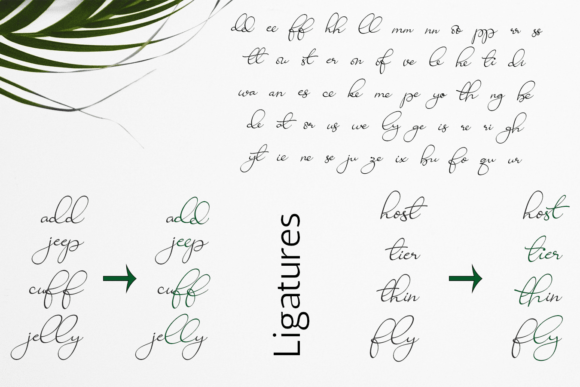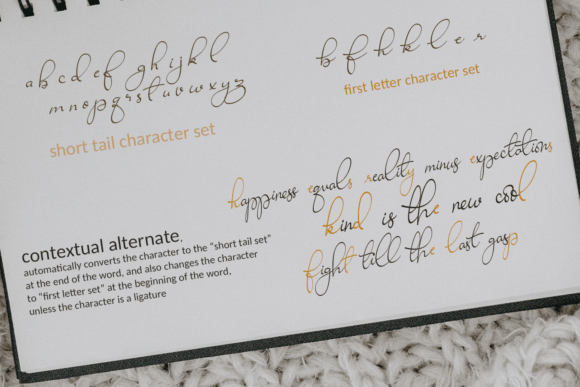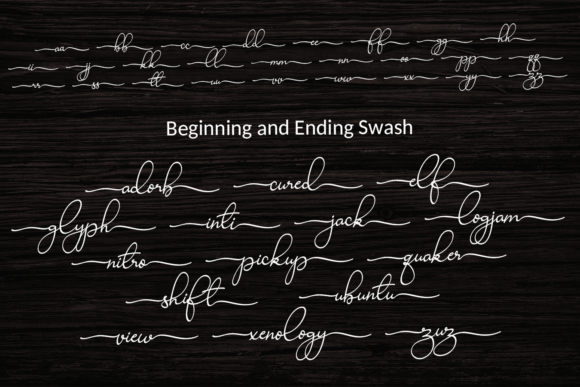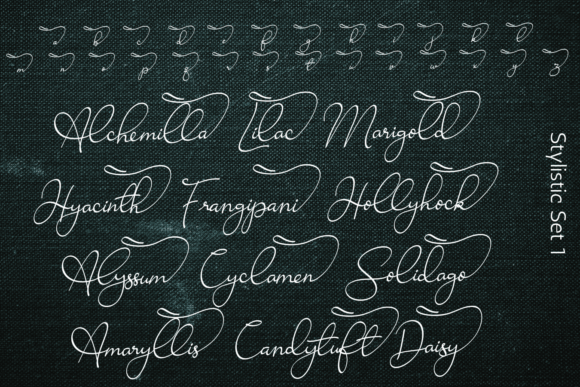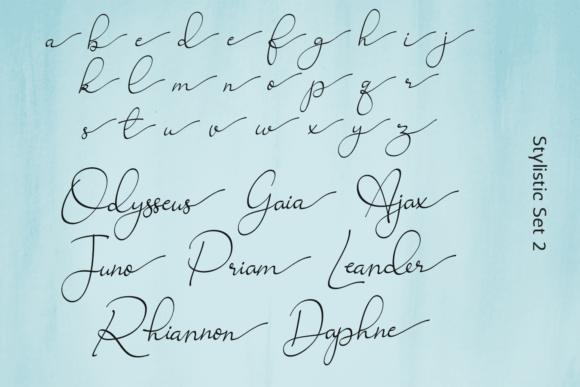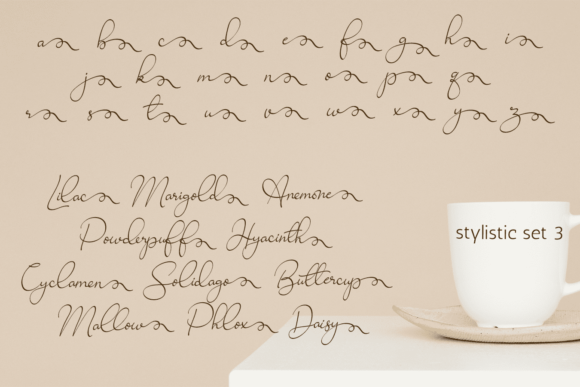
Introduction to Ravishing Solidago Font Font
Fonts play a crucial role in design, and the Ravishing Solidago Font font is a typeface that brings both character and versatility to any project. Whether you’re working on a branding project, a website, or a print design, the Ravishing Solidago Font font offers a unique style that can elevate your work.
Introducing Ravishing Solidago Font, an authentic & organic hand-drawn script font.
This font has been carefully designed to re-create natural handwritten text Ravishing Solidago Font is perfect for many different projects such as logos & branding, invitation, wedding designs, social media posts, advertisements, product packaging, product designs, label, photography, watermark, special events or anything.
Key Features of Ravishing Solidago Font Font
Why Choose Ravishing Solidago Font Font?
The Ravishing Solidago Font font is more than just a typeface – it’s a design tool that helps you communicate your message with style and clarity. Its unique character set and versatile design make it suitable for a wide range of applications, from elegant invitations to bold headlines.
With its carefully crafted letterforms and balanced proportions, the Ravishing Solidago Font font ensures readability and visual appeal across all mediums.
What makes Ravishing Solidago Font font special?
The Ravishing Solidago Font font stands out with its unique design, exceptional readability, and versatility across various design applications.